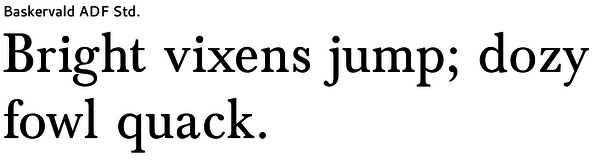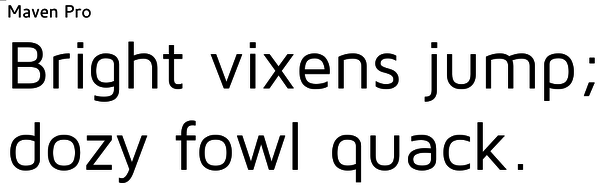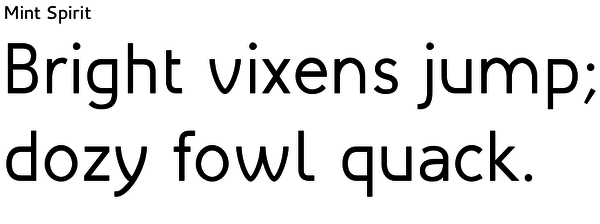
11 free-licensed fonts for everyday use
Spending the last nine months writing a book about LibreOffice, I've rediscovered typography. I've also discovered that as the free font movement enters its second decade, it has evolved from an idea as tentative as free software was in its beginning to a thriving community that gives users a reasonable selection of fonts.
However, as much of a gift as Google Fonts or the Open Font Library can be to graphic designers, they can also be nightmares for average users. When you have hundred of fonts to choose from, how do you choose which ones are right for you?
You may not have any problems with the pragmatic choices. Want fonts whose characters occupy the same space as Times Roman, Arial, and Courier New? Then try the Liberation typefaces. A font with broad Unicode support? Then try those developed by SIL International, one of the pioneers of free fonts and their licensing.
However, aesthetics are another matter. After the first two dozen fonts or so, even an expert's eye begins to fail. Nor is the situation helped by the fact that some free fonts are distinguished mostly by a lack of distinction.
A decade ago, the problem was a lack of choice. Today, however, the problem is too many choices.To get you started, here are eleven high-quality fonts that are useful in everyday documents:
11. Fanwood: Fanwood closely resembles Eric Gill's Joanna in letter shape, size, and spacing. A simple, elegant font, it is ideal for long bodies of text. It is available in regular and italic weights only, but a darker version, Fernwood Text, has been designed for e-readers.
10. Goudy Bookletter 1911: The best of the free fonts inspired by font designer Frederick Goudy, this font has an old-fashioned or formal look, especially with its old style figures. Use it for long bodies of text.
9. Gentium: One of the first quality fonts to use the Open Font License, Gentium has a strong calligraphic look to its characters that makes it feel informal. A versatile font, it can be used at almost any size, and is equally useful for body text and headings. The italic is especially graceful, even when used in a bold weight.
8. Baskervald ADF Standard: Baskerville is widely considered a timeless font, and is one of the best known of 18th Century fonts. The Baskervald ADF is a copy of Baskerville that adhere closely to the metrics of the original.
7. Quattrocento: Available as both a serif and a sans serif font, Quattrocento is a reliable work-horse of a font, suitable for almost any purpose. Its large x-height (the height of letters like "m" or "r") makes it highly readable, as well as a good choice at smaller font sizes.
6. Mint Spirit: Designed as an unofficial font for the Linux Mint distribution, Mint Spirit is a modern sans serif suitable for online display and headings. It is available in two variations: the rounder, slightly looser-spaced Mint Spirit and the squarer, tighter-spaced Mint Spirit No. 2.
5. NeoGothis ADF Standard: This font is an eccentric mixture of two trends from the early 20th Century. The lower case letters are geometric, resembling Futura or Avenir. The upper case leters are no less geometric, but the unusual shapes of letters like "A," "M," and "N" seem to owe more to the Arts and Craft Movement fonts. Somehow, the combo works.
4. Ubuntu: Nine months in development, the Ubuntu font is by far the best thing to come out of the Unity interface. A contemporary sans serif, the only drawback is that it is associated so closely with Ubuntu that you want to make sure that you use it appropriately -- and not, for instance, for a manual for Red Hat. Its light weights and monospaced versions are especially beautiful.
3. Gillius ADF Standard: Gillius is a modern successor to Eric Gill's Gill Sans, the quintessential English font of the twentieth century. Like its parent, Gillus is a sans serif font that can also be used for body text, with very clean lines.
2. Cantarell: The default font for GNOME 3, Cantarell is a contemporary humanist sans-serif, with regular, rounded characters. It is especially useful online, and/or at small sizes. However, its oblique font is so sharply angled as to be hard to read -- especially in contrast to the Regular and Bold weights.
1. Maven Pro: Maven Pro is billed as an all-purpose sans serif. However, it is less suitable for body text than Gill Sans or Gillius, and probably best reserved for headings.
The new professionalism
Some of these fonts are not perfect -- but, then the same could be said of many commercial fonts. Flaws and all, these eleven fonts are enough to prove once and for all that you don't need to pay to obtain quality fonts.
True, at least a dozen proprietary fonts exist for every free-licensed fonts. Also, traditional font foundries have the advantage of being able to license the original designs for some of the best known fonts. Still, today it is possible to do professional work using only free fonts -- something that was impossible ten years ago.